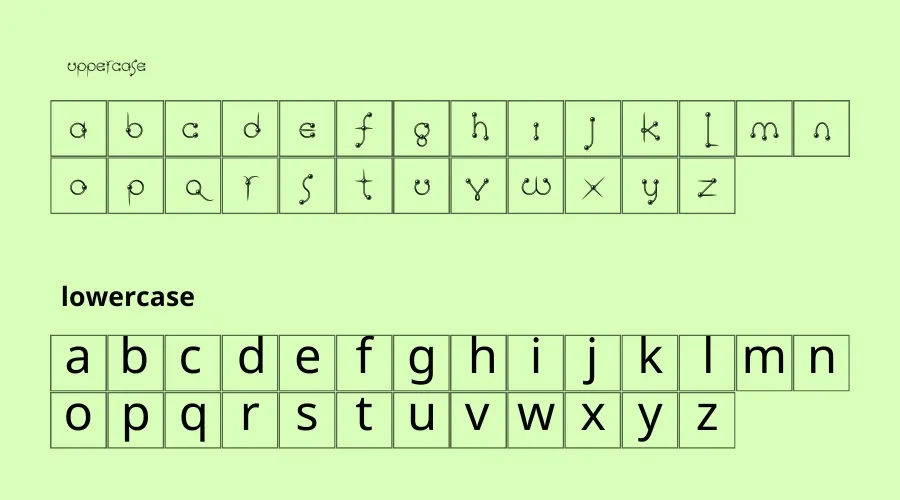
Ringpin Font
Ringpin Font is designed by Harold Lohner it is a fancy text style. It has several unique qualities that make it appropriate for a variety of uses. The font is ideal for a variety of unique projects. This typeface has a distinctive textual style, so the letter works well for creating university projects.
With such typography, users could really generate delightful and remarkable layouts. The font is flawless for any design that demands a versatile impression.
Users can try its book-size characters for publication purposes. It is also appropriate for any visual, including logo design, brochure design, banner design, and textual layout. You may create several expert designs for your clients and add some special classes to the project.
Additionally, you may develop a variety of fascinating designs, including printed materials, home décor, artwork, designs for websites and blogs, marketing materials, brand campaigns, letterheads, invitations, catalogs, logos, advertising, etc.
You may combine this attractive typeface with asessor font and make stunning projects. This typeface comprises actually beautiful characters, so the design will look imaginary in posters and headings. This style could also be used in any book cover, magazine design, kids’ art book cover, T-shirt design, and so on.
What type of font is Ringpin?
This font is a fancy style this typeface comprises beautiful characters that make it amazing in the fonts world.